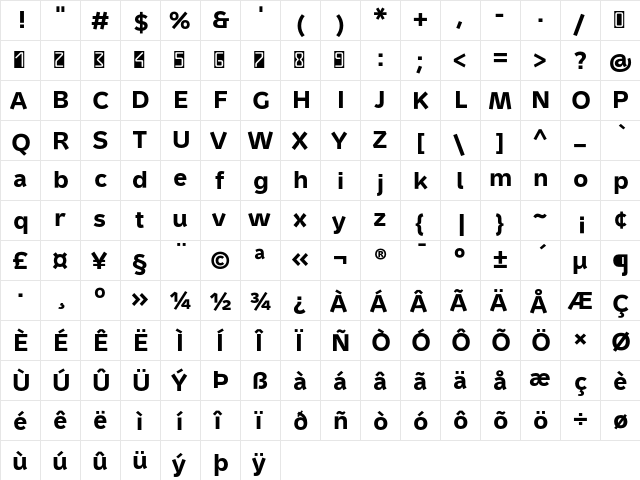
MetronDigita Pro Bold
Design Context for MetronDigita Pro Typeface
MetronDigita Pro has a distinctly futuristic character, with geometric precision and clean angles that feel at home in technology, gaming, and sci-fi contexts. The heavy weight commands attention and anchors typographic hierarchies.
Pro Tip: Try MetronDigita Pro with generous letter-spacing in UI labels and navigation — the geometric forms benefit from room to breathe.